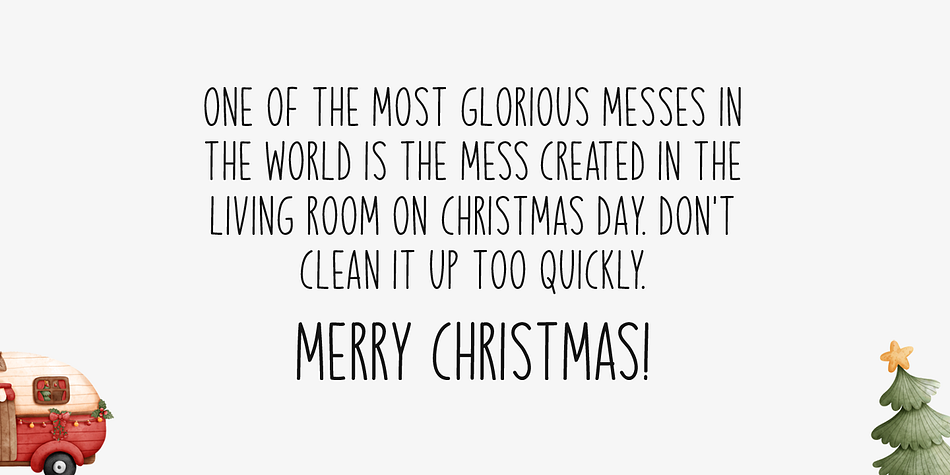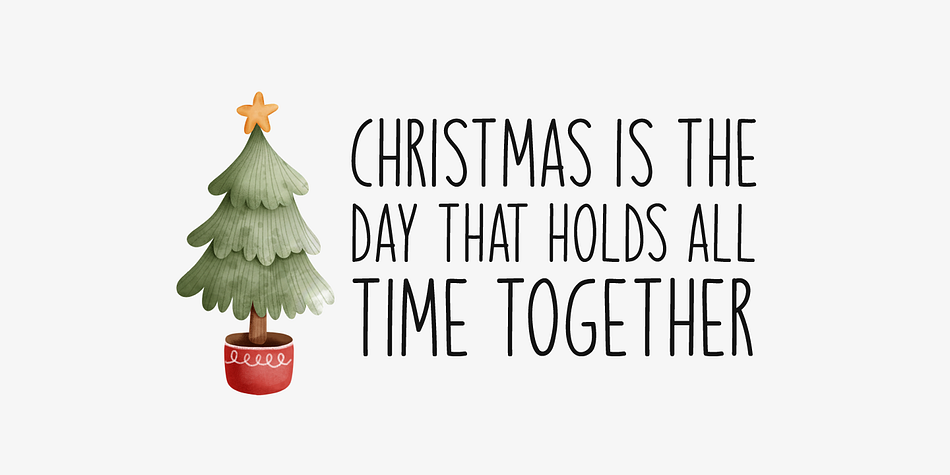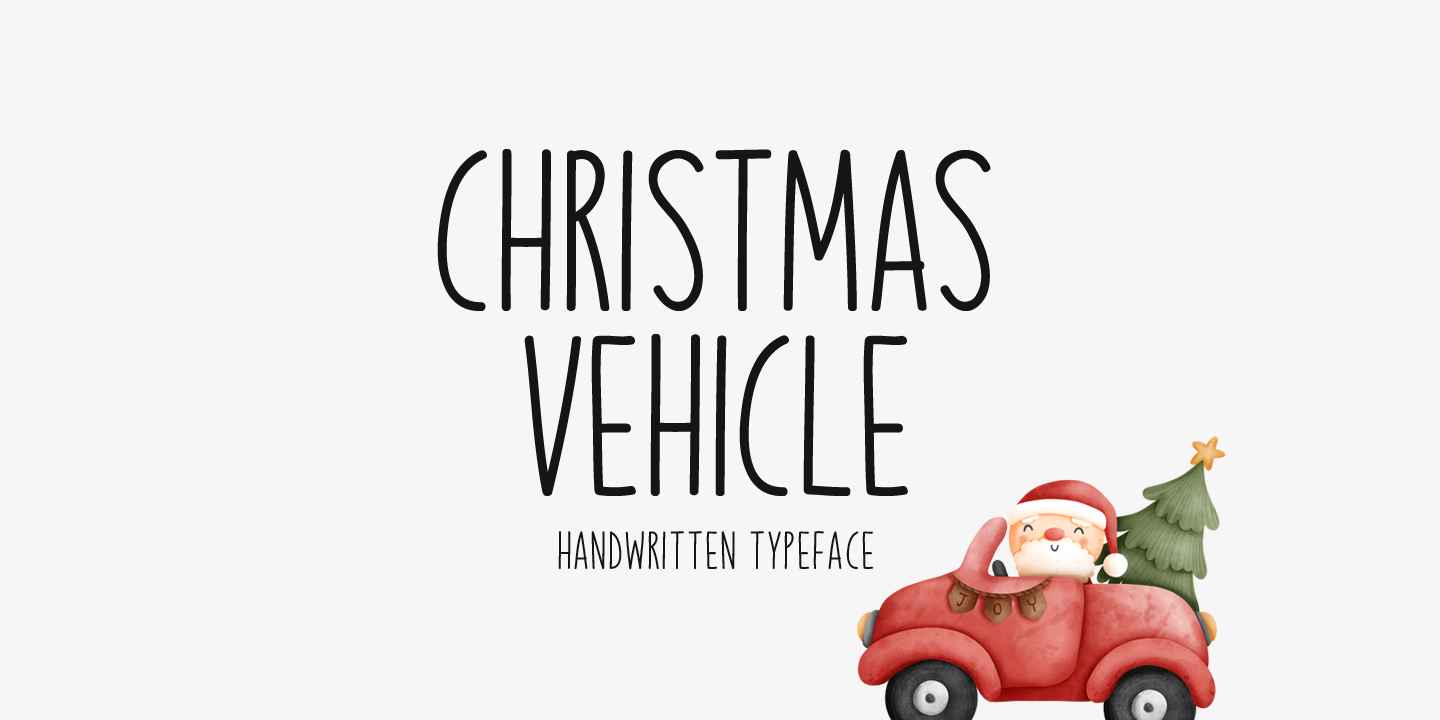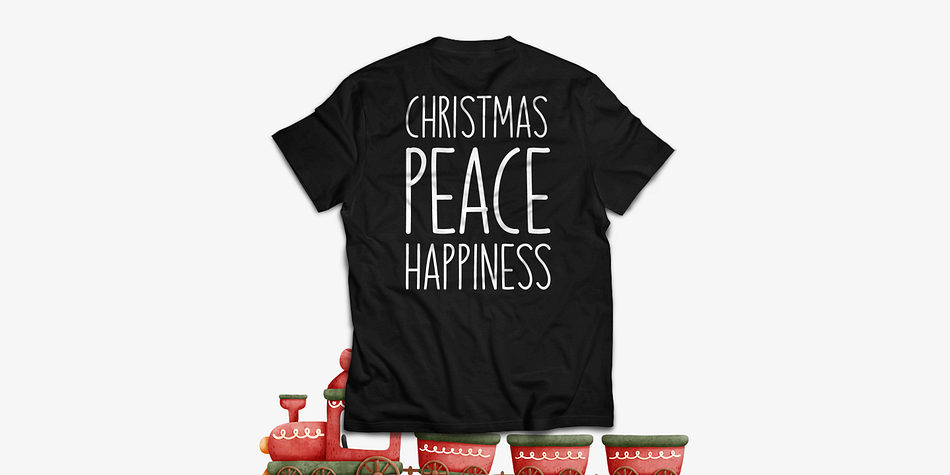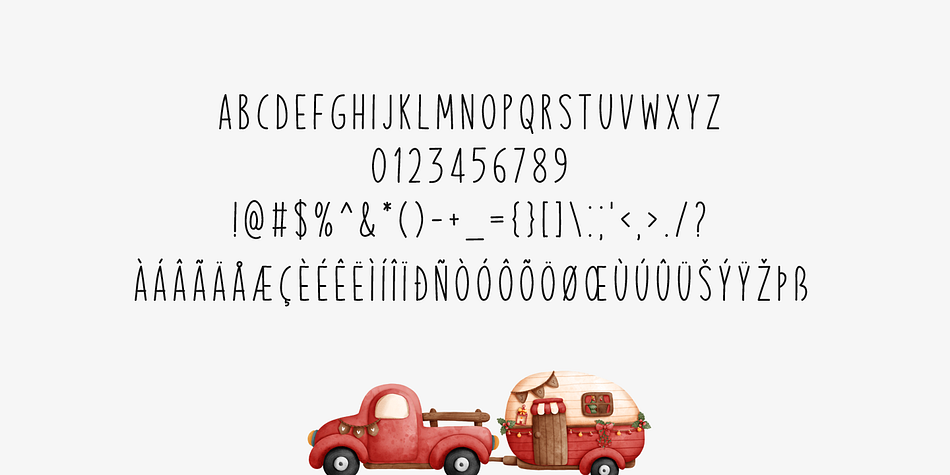
CHRISTMAS VEHICLE
Designed by Md. Shohail Bhuiyan, Christmas Vehicle is a hand drawn font published by Seemly Fonts.
Christmas Vehicle is a cute and simple lettered handwritten font that can be used for all chalkboard quotes or teaching material! Its authentic look will add a personal and realistic feel to your designs.